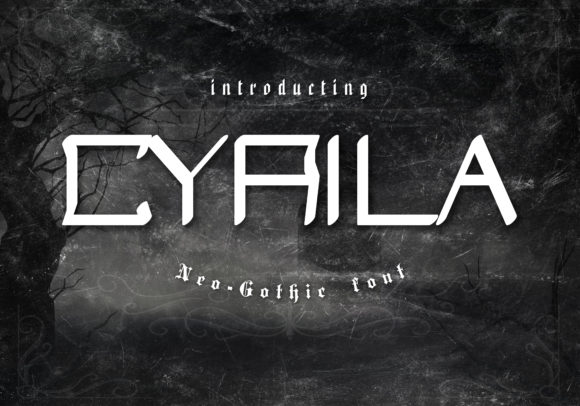
An eye-catching modern display font that will make your designs stand out from the crowd. Introducing Cyrila font, the latest innovation in the font industry!
With Cyrila, you can give your projects extra flair with its uniquely stylish characters. Its sleek lines and curves create a sophisticated ambiance, adding a touch of modern elegance to any design. Whether you're working on branding, packaging, or social media graphics, Cyrila has the power to elevate your work.
Why settle for ordinary when you can have extraordinary? Cyrila is the key to unlocking your creative potential. Its versatility knows no bounds, making it perfect for a wide range of design applications. From chic logos to captivating headlines, Cyrila will transform your ideas into captivating masterpieces.
Embrace the allure of Cyrila and watch your designs take flight. With its exceptional design and limitless possibilities, this font is an investment in your creative journey. Get ready to make a statement with Cyrila today!